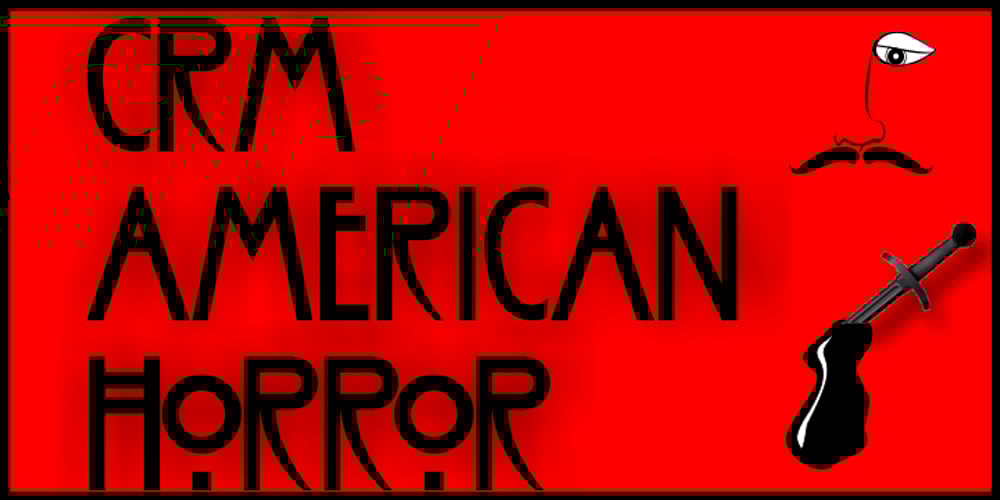
CRM American Horror
CRM American Horror font
CRM American Horror Font Family was designed by George R. Grant and published by CRMFontCo. CRM American Horror contains 1 styles and family package options. The Classic Charles Rennie Mackintosh Font has been a massive seller over the years. Its use in the Hollywood motion picture “Spider Man 2”, has now been emulated by the branding of the the new Fox TV series “American Horror Story”. Very unusual for the horror genre, this slightly tweaked version of the classic original mirrors how the show’s producers have used it.